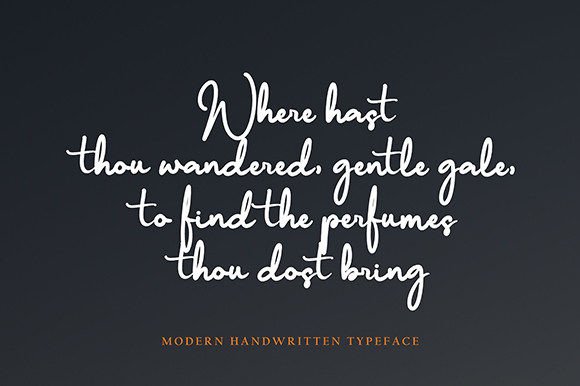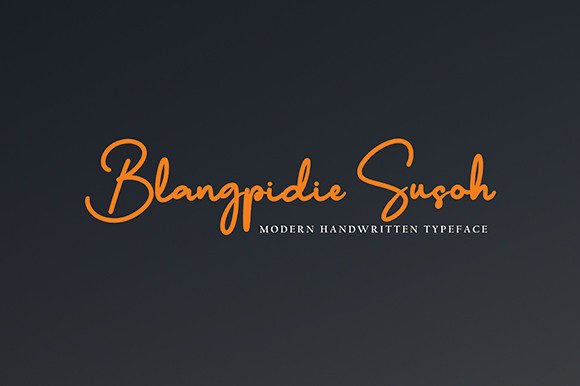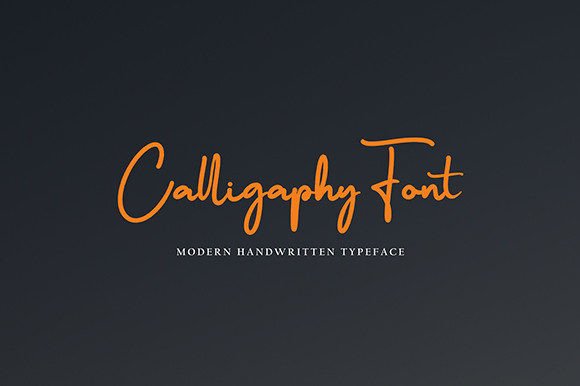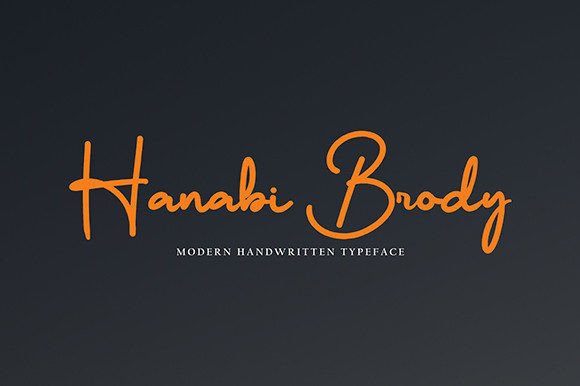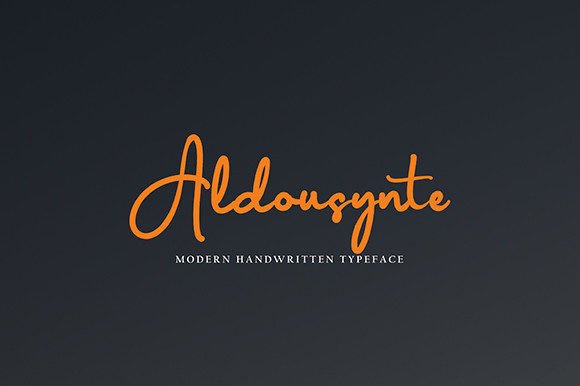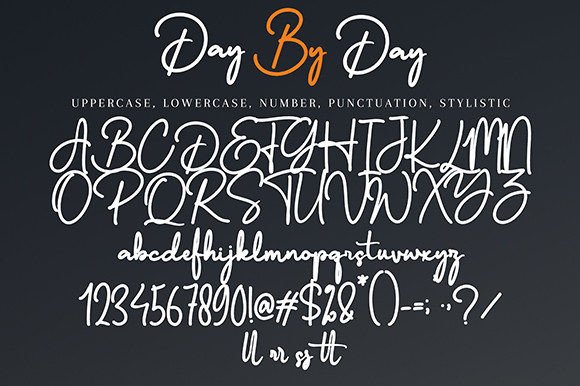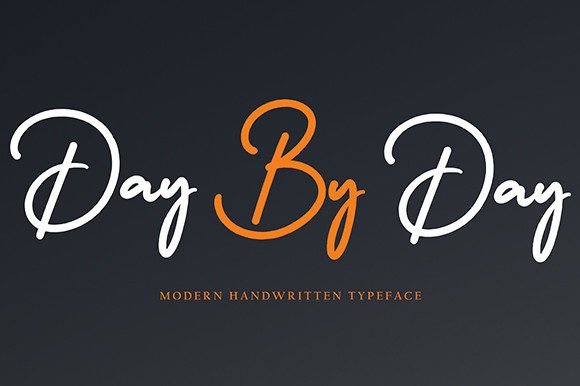
Discover the Elegance of Day by Day Font: Elevate Your Designs with a Timeless Touch
Are you on the hunt for a font that can add a touch of elegance and sophistication to your designs? Look no further than the Day by Day Font. This beautiful, flowing handwritten font is described by its elegant touch, making it perfect for your favorite projects. With its incredibly distinct and timeless style, you’ll fall in love with the way it can transform your designs and take them to the next level.
What Makes Day by Day Font So Special?
The Day by Day Font is a unique and versatile typeface that boasts an elegant, cursive style. Its flowing lines and curves create a sense of movement and fluidity, making it ideal for designs that require a touch of sophistication. Whether you’re working on a branding project, a wedding invitation, or a social media graphic, this font is sure to impress.
One of the standout features of the Day by Day Font is its timeless quality. Unlike trendy fonts that may quickly go out of style, this font has a classic, enduring appeal that will remain relevant for years to come. Its distinct style is both modern and nostalgic, making it perfect for designers who want to create designs that are both contemporary and memorable.
The Day by Day Font is incredibly versatile, making it suitable for a wide range of projects. Here are just a few ideas to get you started:
• Branding and Logos: Use the Day by Day Font to create a logo or brand identity that exudes elegance and sophistication.
• Wedding Invitations: Add a touch of romance and whimsy to your wedding invitations with this beautiful font.
• Social Media Graphics: Use the Day by Day Font to create eye-catching social media graphics that stand out from the crowd.
• Packaging Design: Elevate your packaging design with a font that’s both stylish and memorable.
Why Designers and Crafters Love Day by Day Font
So, what is it about the Day by Day Font that designers and crafters love so much? Here are just a few reasons:
• Elegant and Sophisticated: The Day by Day Font adds a touch of elegance and sophistication to any design.
• Easy to Read: Despite its elegant style, the Day by Day Font is incredibly easy to read, making it perfect for designs that require a clear message.
• Customizable: The Day by Day Font can be customized to suit your design needs, allowing you to experiment with different styles and effects.
• Support for Multiple Languages: The Day by Day Font supports multiple languages, making it a great choice for designers who work with international clients.
Tips for Using Day by Day Font in Your Designs
Here are a few tips for using the Day by Day Font in your designs:
• Pair it with a Sans-Serif Font: Pair the Day by Day Font with a sans-serif font for a stylish and modern contrast.
• Experiment with Colors: Don’t be afraid to experiment with different colors and textures to add depth and interest to your design.
• Use it for Headings and Titles: The Day by Day Font is perfect for headings and titles, where its elegant style can really shine.
In conclusion, the Day by Day Font is a beautiful, elegant typeface that’s perfect for designers and crafters who want to add a touch of sophistication to their designs. With its timeless style, versatility, and ease of use, it’s no wonder that this font has become a favorite among designers. Whether you’re working on a branding project, a wedding invitation, or a social media graphic, the Day by Day Font is sure to impress.